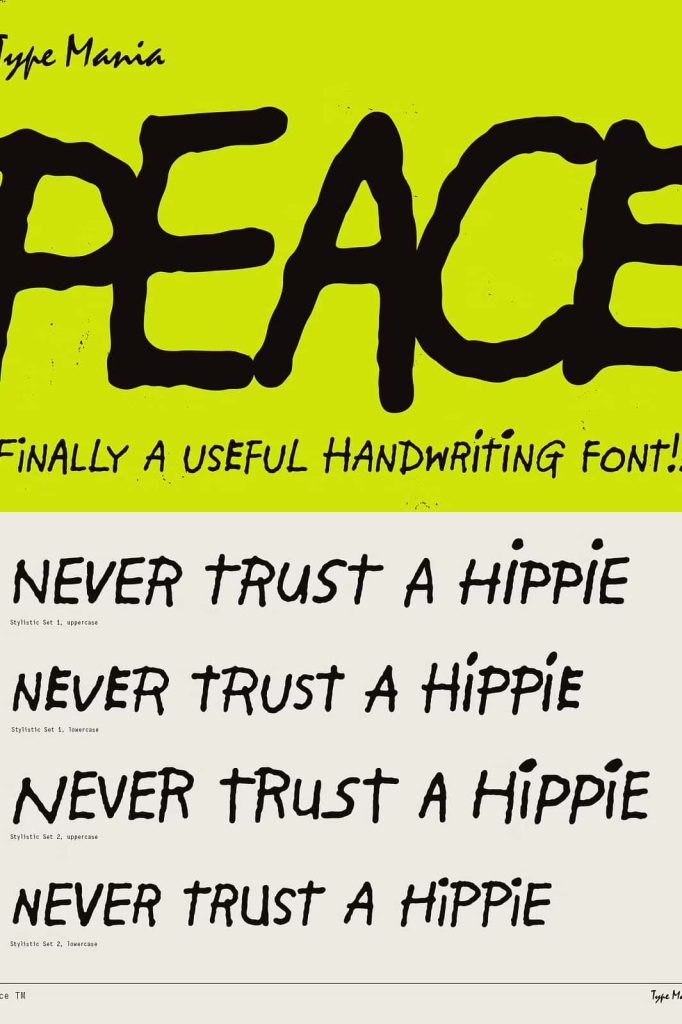
Peace TM – Automatic ScriptleastedJune 6, 2025Fonts Capture the restless spirit of the 1960s with Peace TM, a handwritten typeface inspired by the underground comics of the era Download